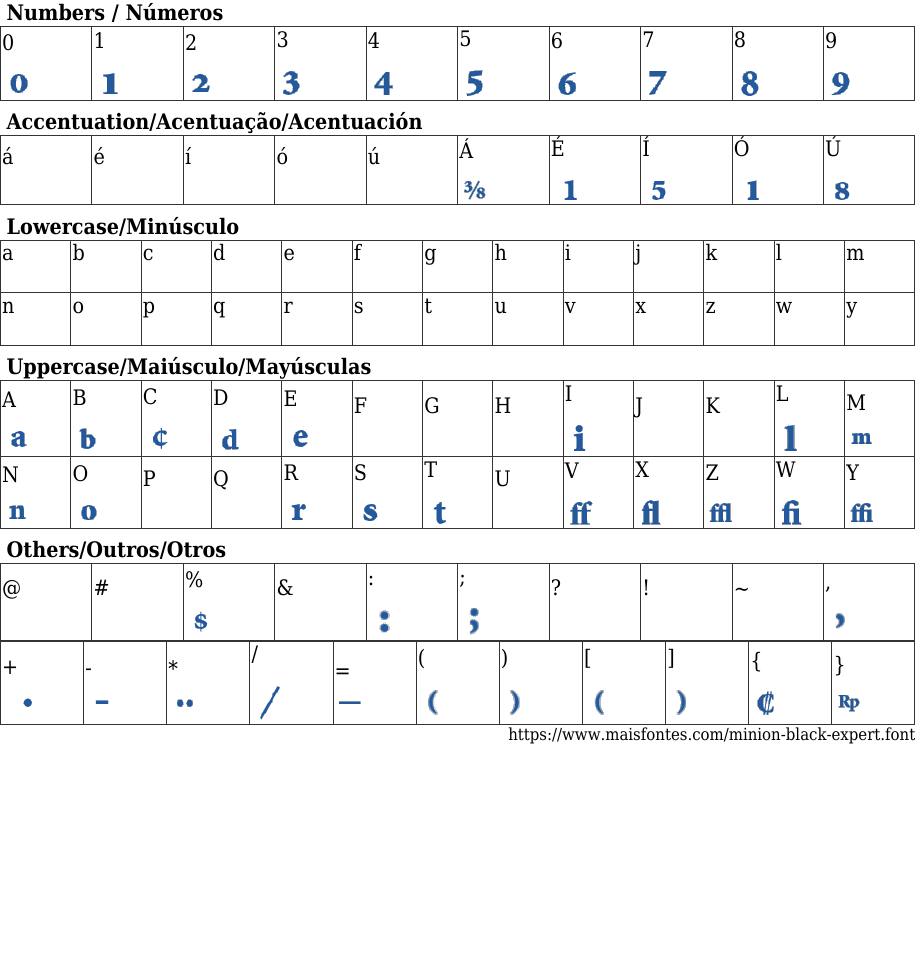
Minion Black Font . Web explore minion 3 designed by robert slimbach at adobe fonts. The font family is minion.
Web minion is a serif typeface released in 1990 by adobe systems. Web explore minion designed by robert slimbach at adobe fonts. Available in both linotype and opentype formats and designed by robert.
Available in both linotype and opentype formats and designed by robert. Web download minion pro for free, view sample text, rating and more on fontsgeek.com. Web minion black is the perfect font for all your fun designs. The font family is minion.
Minion Black Font - Available in both linotype and opentype formats and designed by robert. The font family is minion. Web minion is a serif typeface which was initiated in 1990 by adobe systems. Web explore minion 3 designed by robert slimbach at adobe fonts. Web download minion black for free.
Minion Black Font - Web minion is a serif typeface released in 1990 by adobe systems. Web explore minion designed by robert slimbach at adobe fonts. Web minion is a serif typeface which was initiated in 1990 by adobe systems. Web download minion pro for free, view sample text, rating and more on fontsgeek.com. A serif typeface with 65 styles, available from adobe fonts.
Minion Black Font - Web download minion pro for free, view sample text, rating and more on fontsgeek.com. Web minion black is the perfect font for all your fun designs. The font family is minion. A serif typeface with 8 styles, available from adobe fonts for sync and web. View sample text, character map, user rating and review for minion black.
Minion Black Font - View sample text, character map, user rating and review for minion black. Minion is a 1990 adobe originals typeface by robert slimbach. Web download minion black for free. Web minion is a serif typeface released in 1990 by adobe systems. The font family is minion.
Minion Black Font - Web download minion pro for free, view sample text, rating and more on fontsgeek.com. A serif typeface with 65 styles, available from adobe fonts for sync and web. Web minion® pro is a serif font family. A serif typeface with 8 styles, available from adobe fonts for sync and web. Web minion black is the perfect font for all your.
Minion Black Font - View sample text, character map, user rating and review for minion black. Minion is a 1990 adobe originals typeface by robert slimbach. A serif typeface with 65 styles, available from adobe fonts for sync and web. The font family is minion. Web minion® pro is a serif font family.
Minion Black Font - A serif typeface with 8 styles, available from adobe fonts for sync and web. Web download minion black for free. Available in both linotype and opentype formats and designed by robert. A serif typeface with 65 styles, available from adobe fonts for sync and web. The font family is minion.
Minion Black Font - Web download minion black for free. Web minion is a serif typeface released in 1990 by adobe systems. Web download minion pro for free, view sample text, rating and more on fontsgeek.com. The font family is minion. Available in both linotype and opentype formats and designed by robert.
Minion Black Font - The font family is minion. Web download minion black for free. Web minion is a serif typeface released in 1990 by adobe systems. Web minion® pro is a serif font family. Web download minion pro for free, view sample text, rating and more on fontsgeek.com.
Minion Black Font - The font family is minion. Available in both linotype and opentype formats and designed by robert. View sample text, character map, user rating and review for minion black. A serif typeface with 65 styles, available from adobe fonts for sync and web. A serif typeface with 8 styles, available from adobe fonts for sync and web.
Minion Black Font - A serif typeface with 65 styles, available from adobe fonts for sync and web. Web explore minion designed by robert slimbach at adobe fonts. Web download minion pro for free, view sample text, rating and more on fontsgeek.com. Web download minion black for free. Web minion® pro is a serif font family.
Minion Black Font - Web explore minion 3 designed by robert slimbach at adobe fonts. Available in both linotype and opentype formats and designed by robert. View sample text, character map, user rating and review for minion black. A serif typeface with 65 styles, available from adobe fonts for sync and web. Web explore minion designed by robert slimbach at adobe fonts.
Minion Black Font - Web minion is a serif typeface released in 1990 by adobe systems. Web download minion pro for free, view sample text, rating and more on fontsgeek.com. A serif typeface with 65 styles, available from adobe fonts for sync and web. Web explore minion 3 designed by robert slimbach at adobe fonts. A serif typeface with 8 styles, available from adobe.
Minion Black Font - View sample text, character map, user rating and review for minion black. The font family is minion. Web download minion pro for free, view sample text, rating and more on fontsgeek.com. A serif typeface with 8 styles, available from adobe fonts for sync and web. A serif typeface with 65 styles, available from adobe fonts for sync and web.